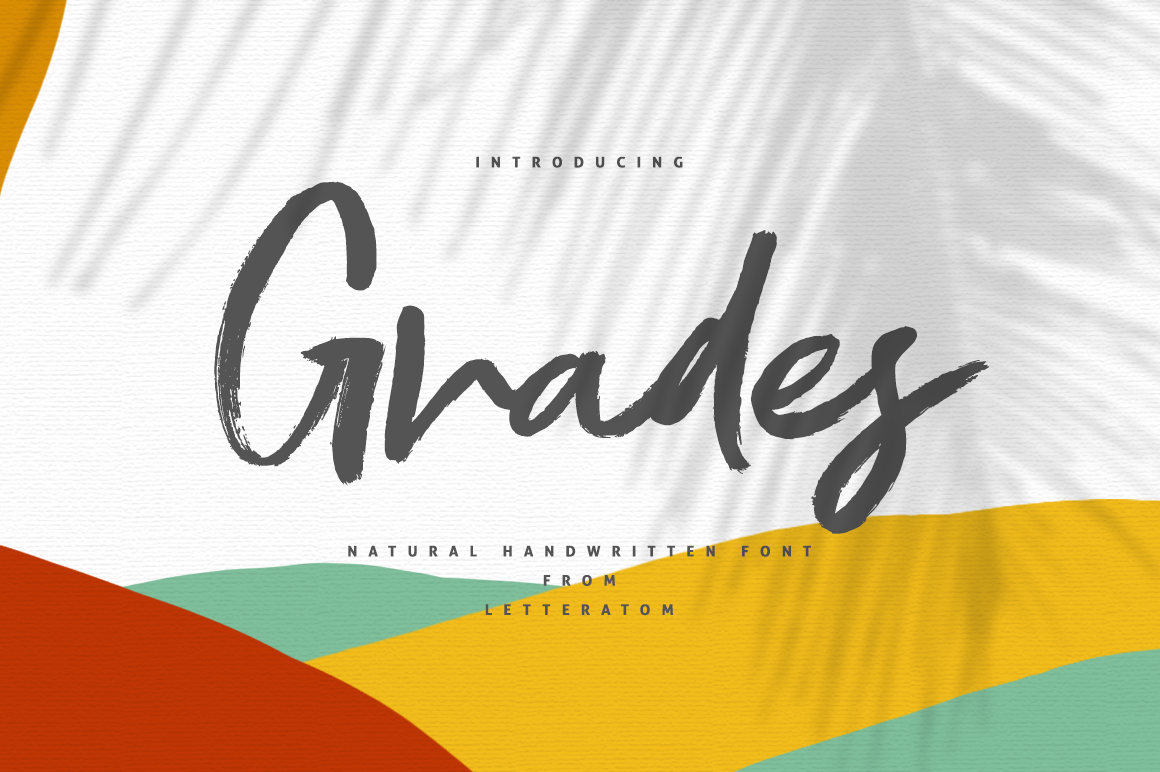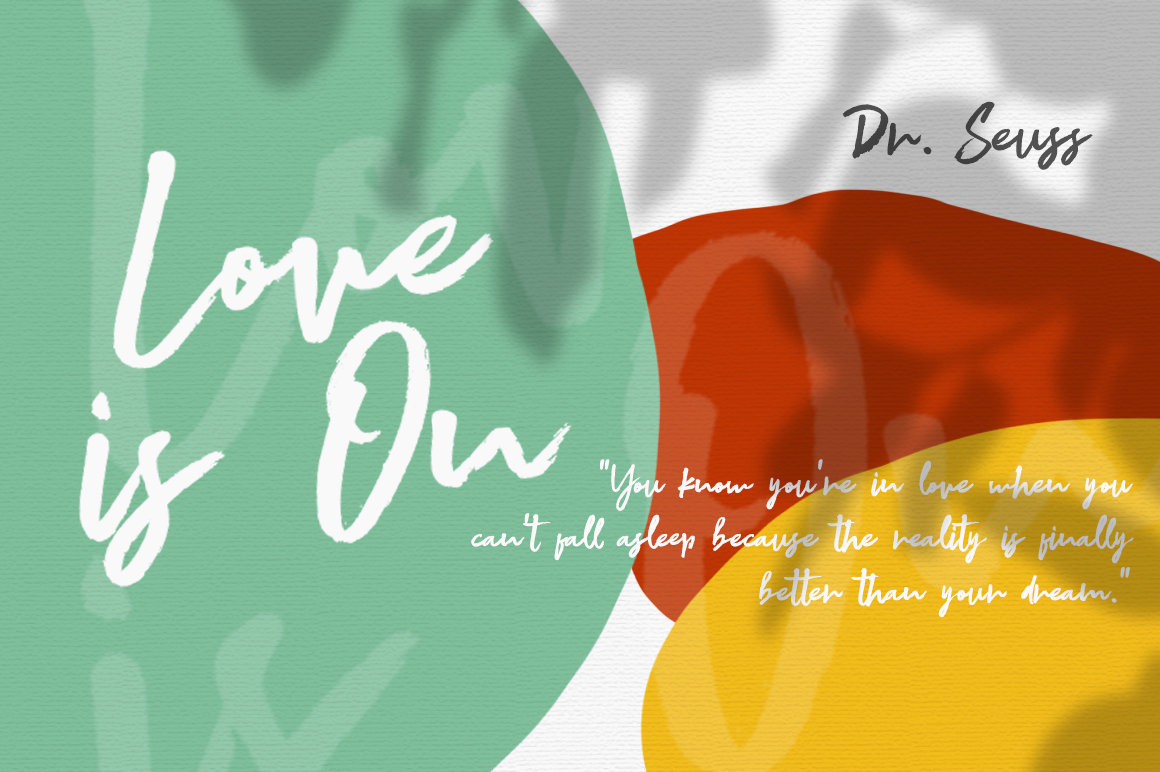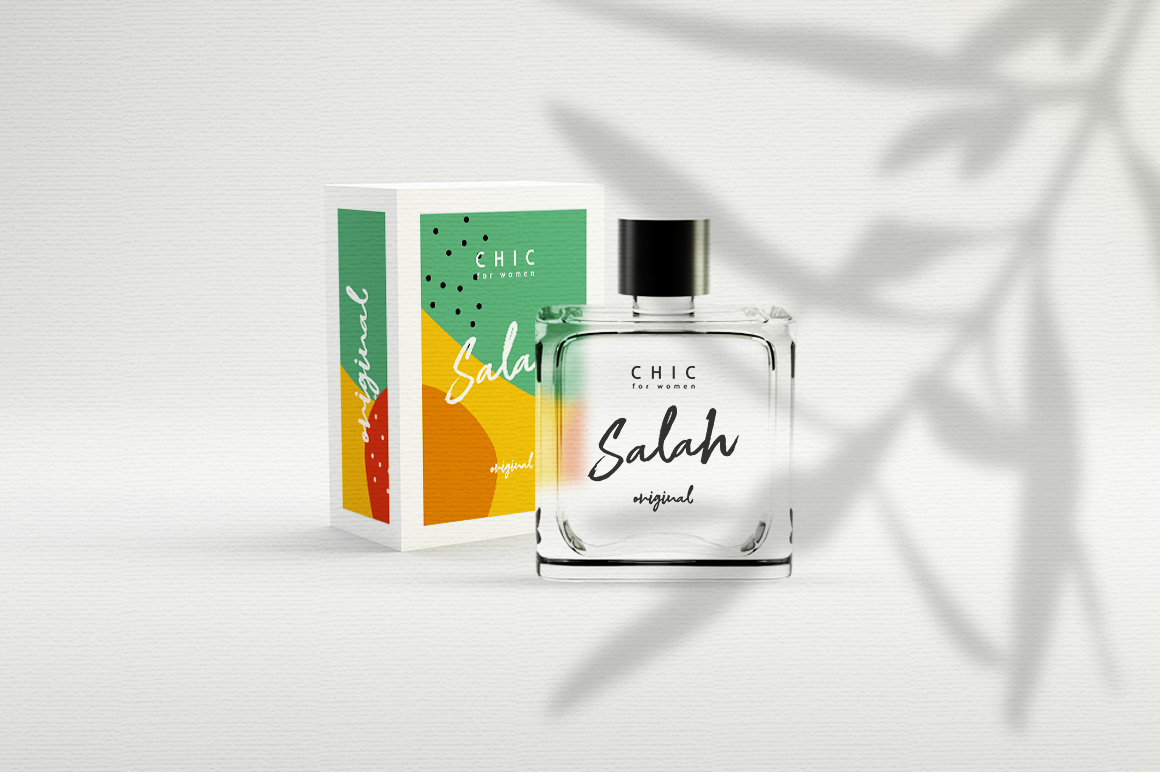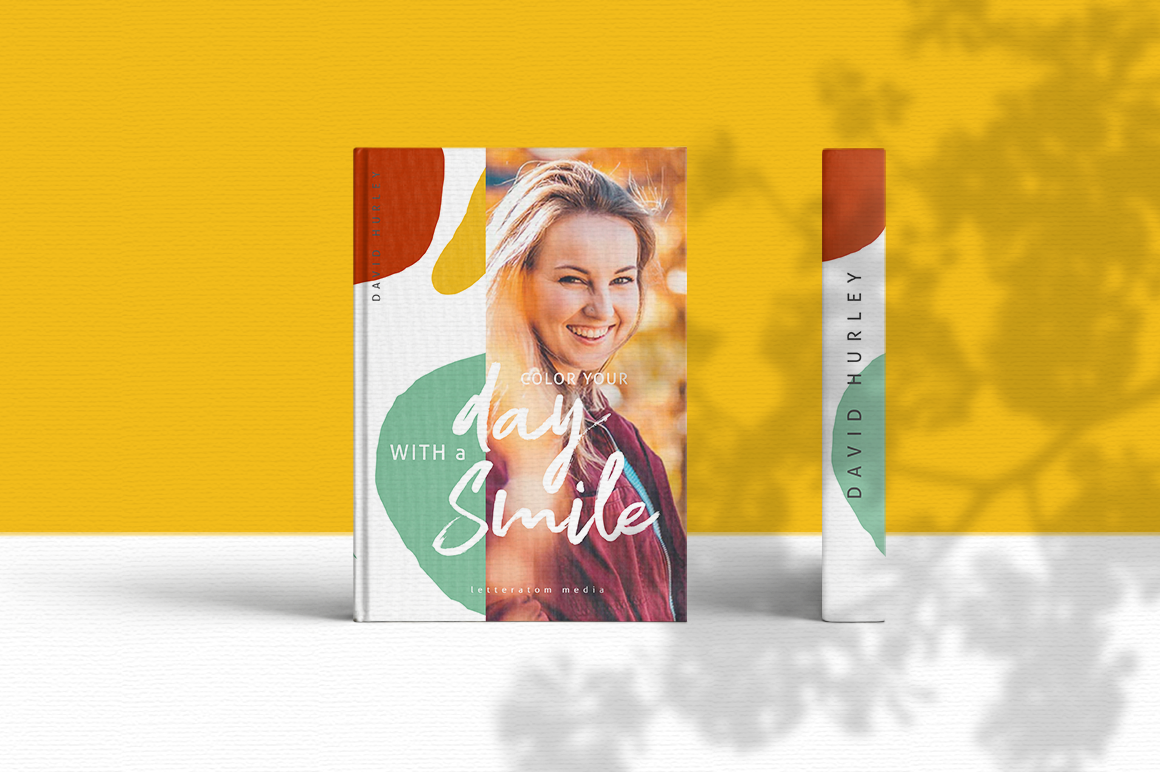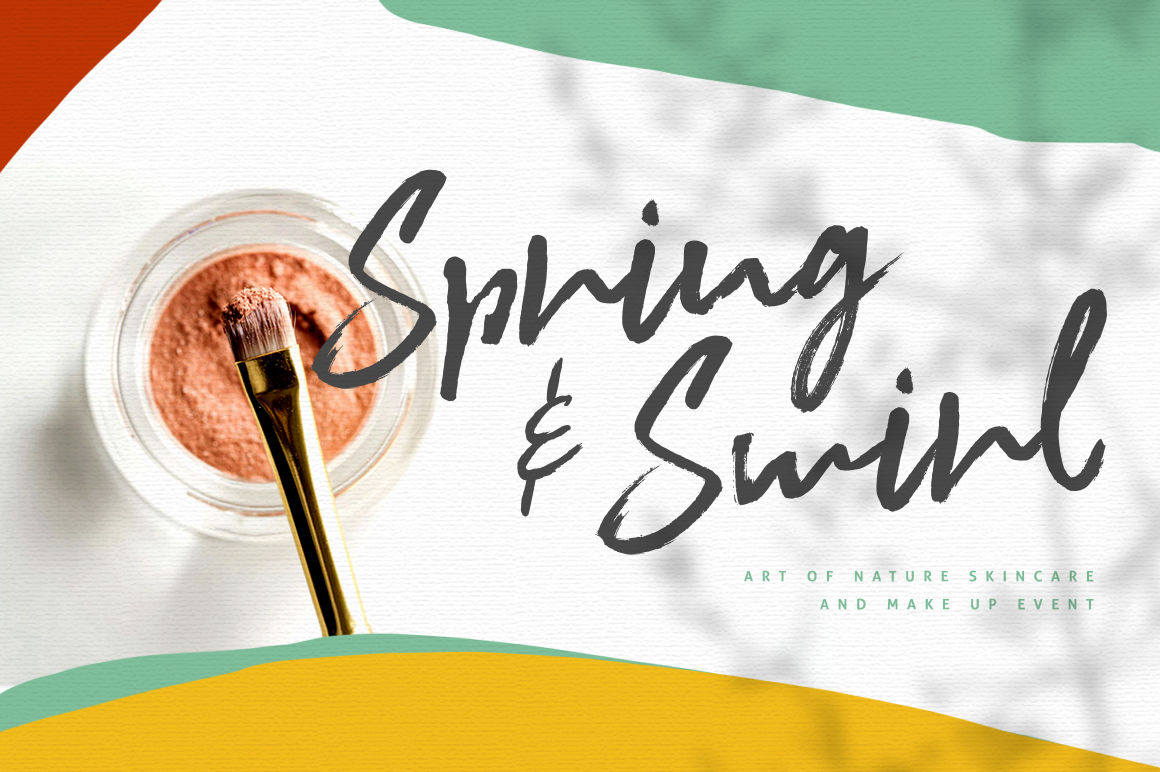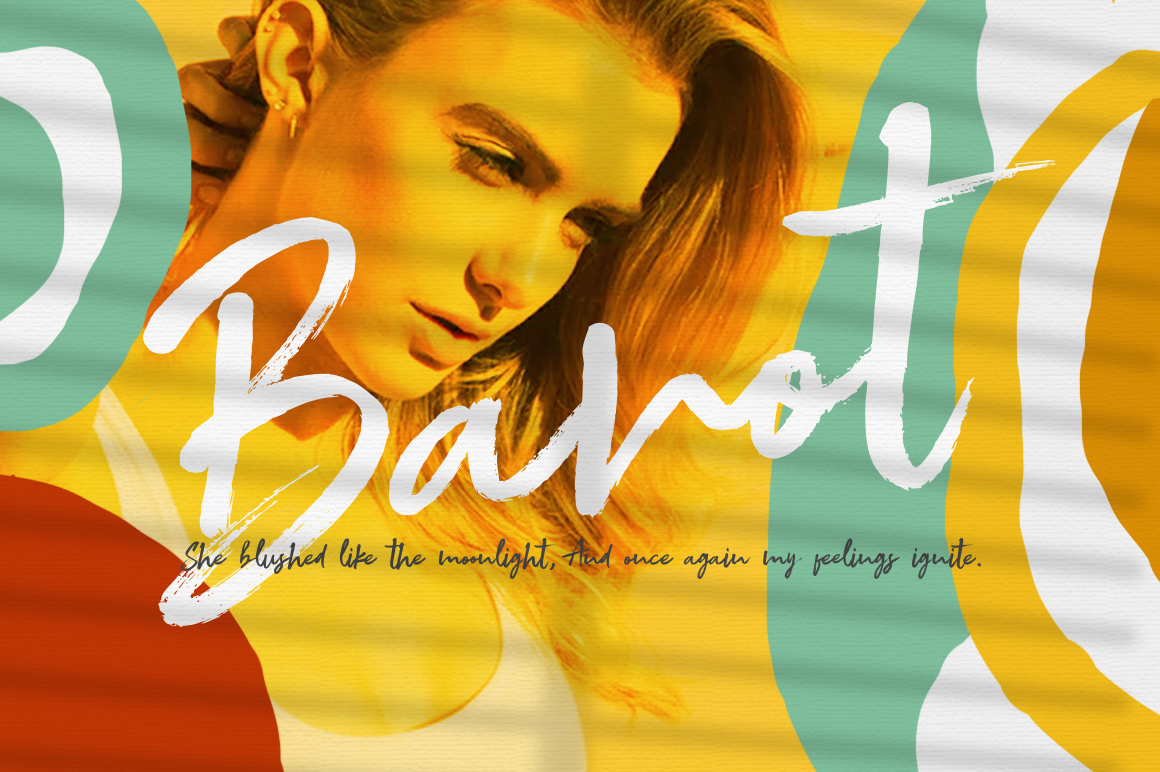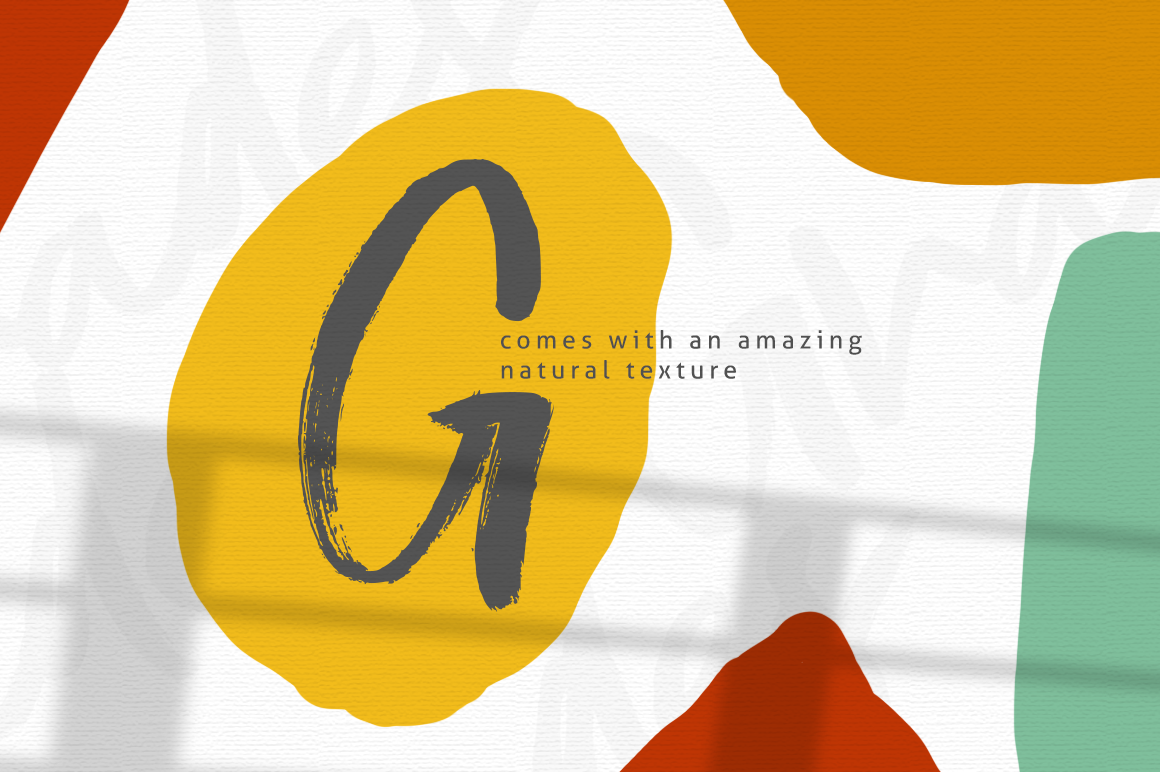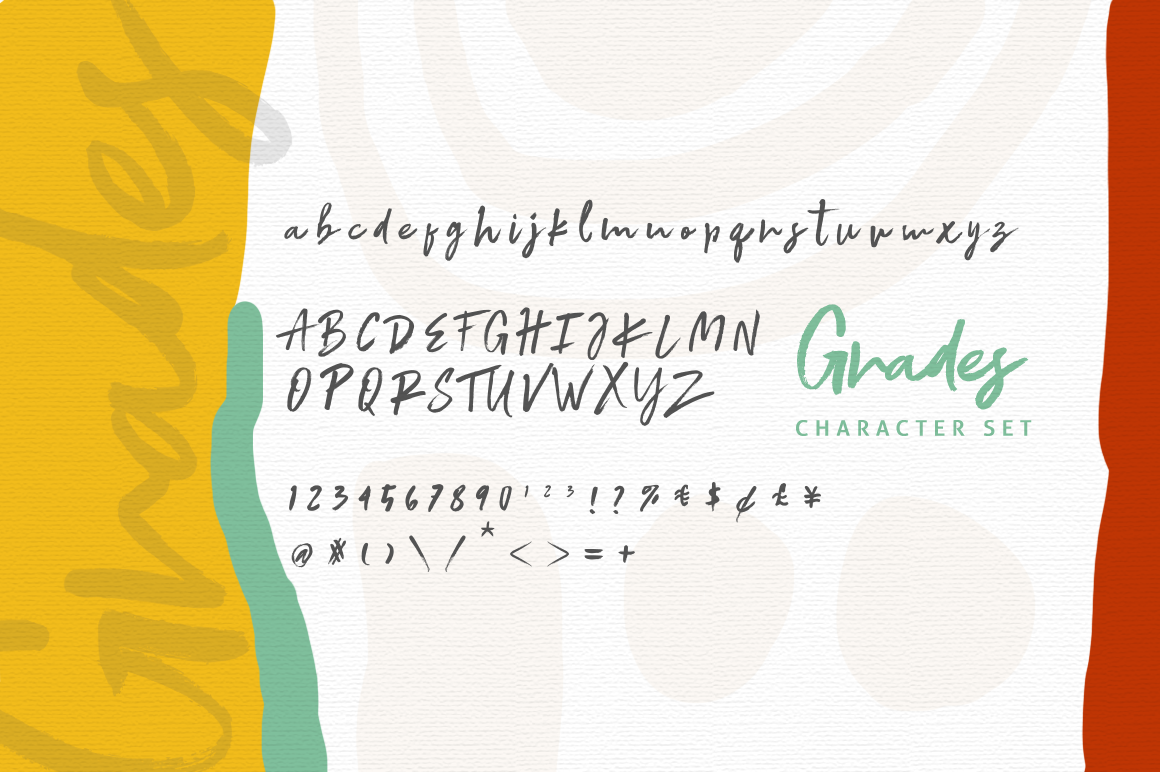
Hi there, A collection of new fonts from atoms called Grades, is a font with an amazing natural touch, perfect for your various design needs.
Play with Grades and let your typography do the talking.